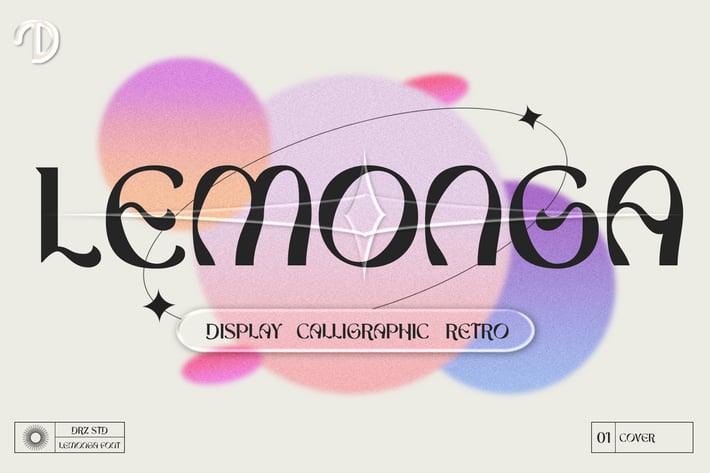
Lemonga - Retro Calligraphic Font
Lemonga is a Retro Calligraphic Font from Drizy studio. Offering all the basic styles you will need especially for classic theme project.
Lemonga Features:
All Caps
Multilinguals
Alternates
Ligatures